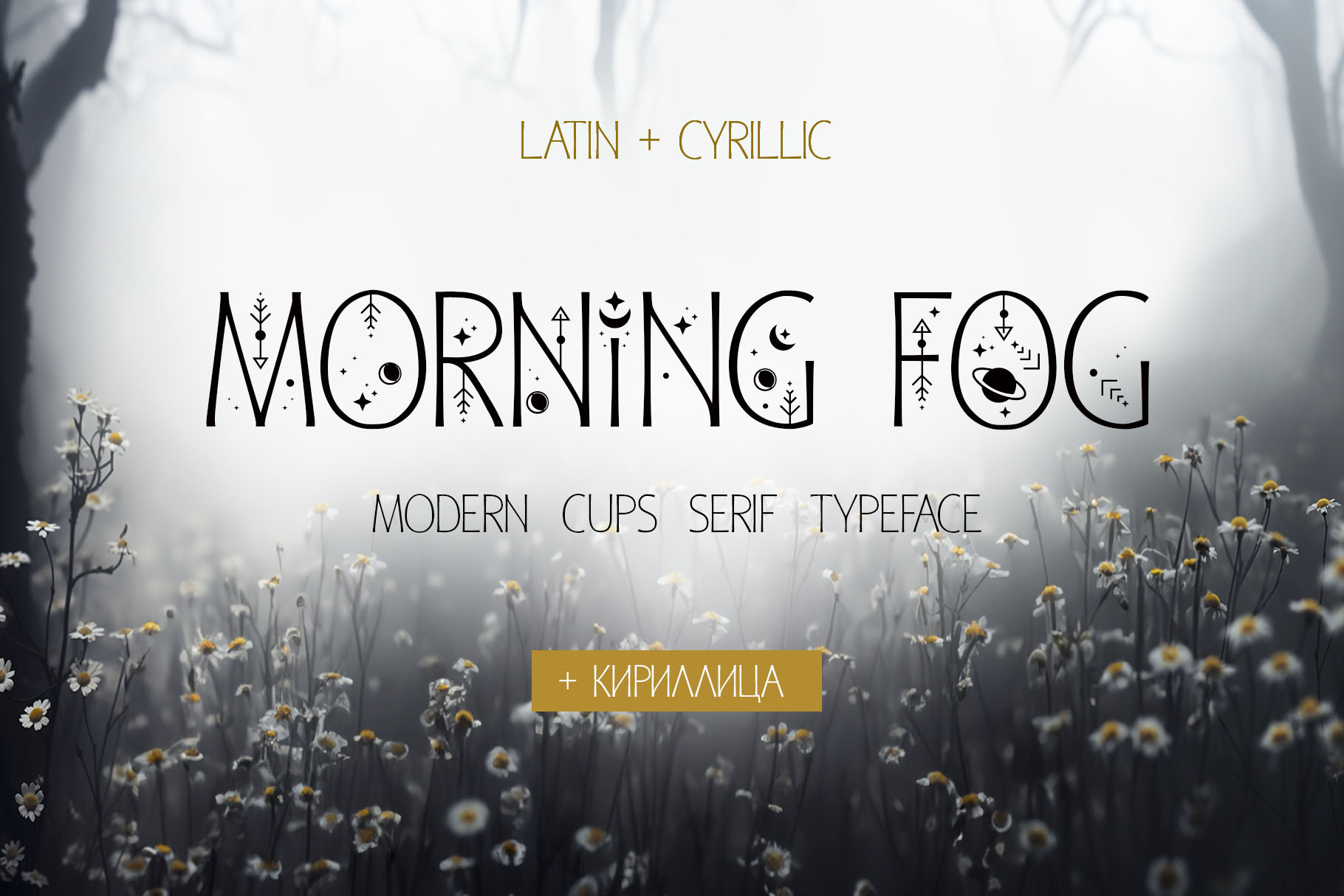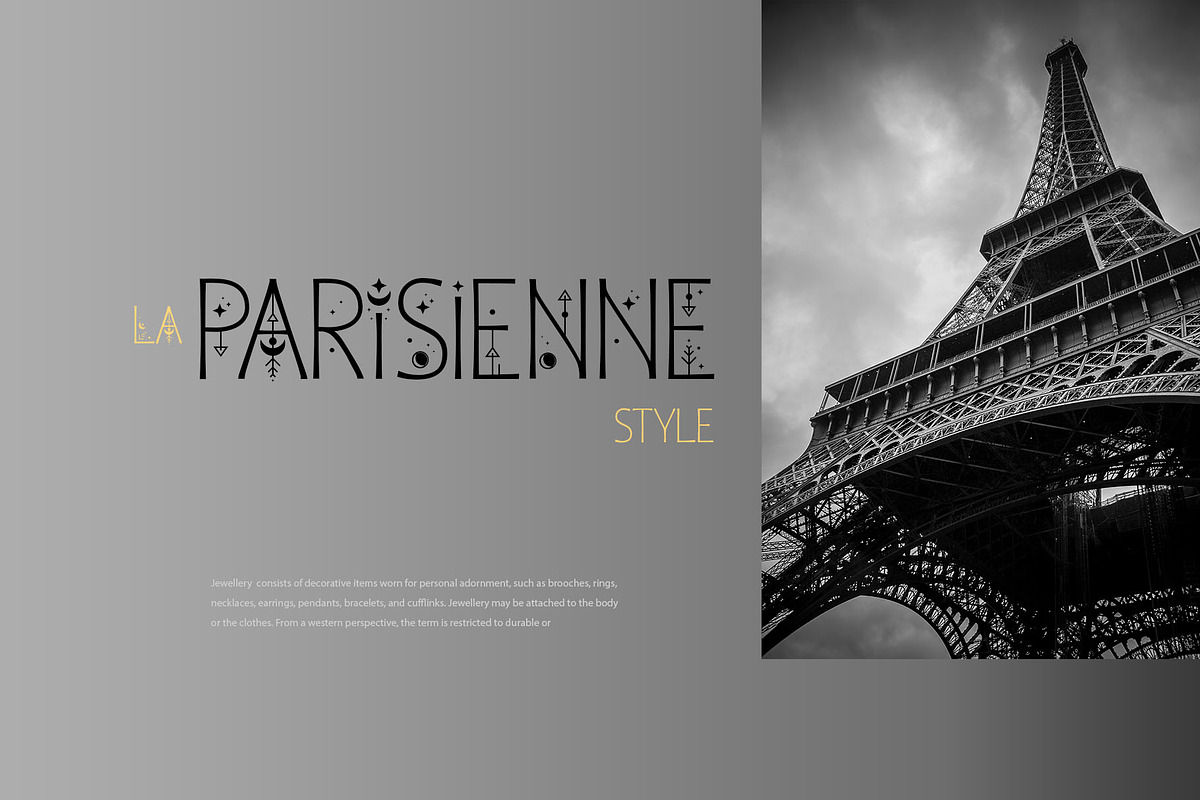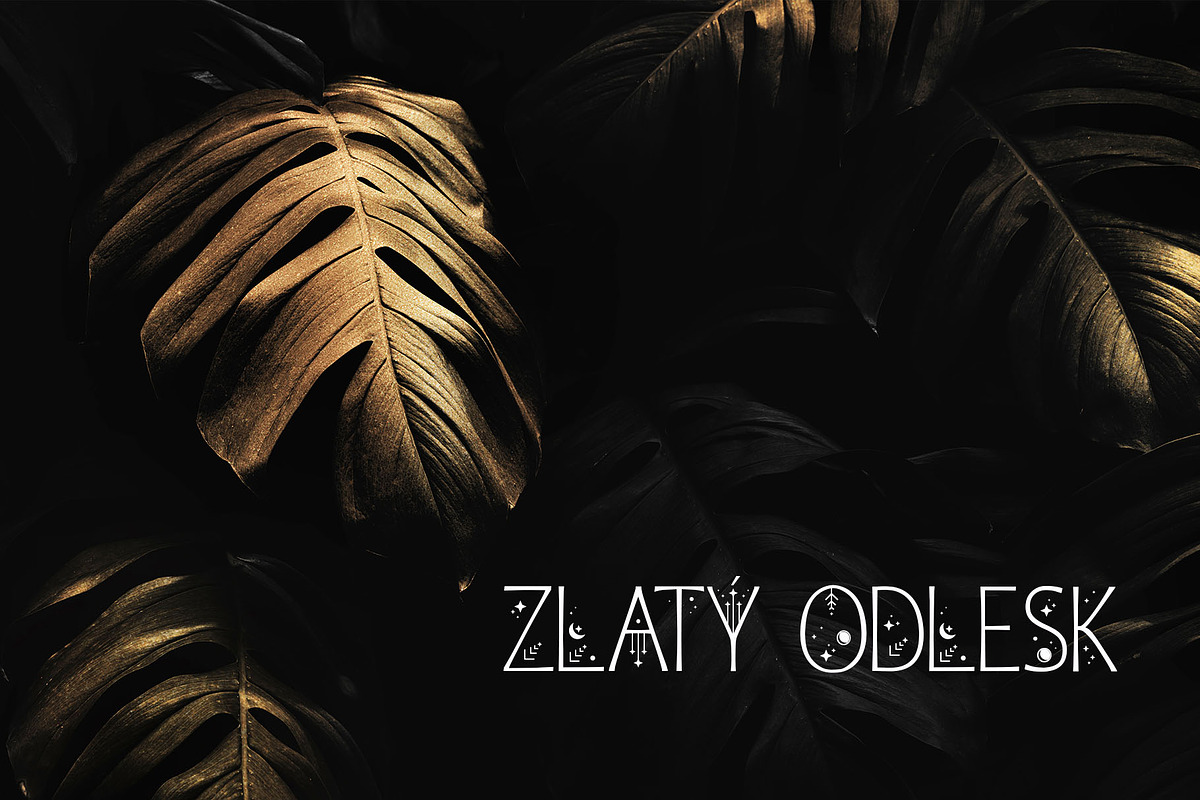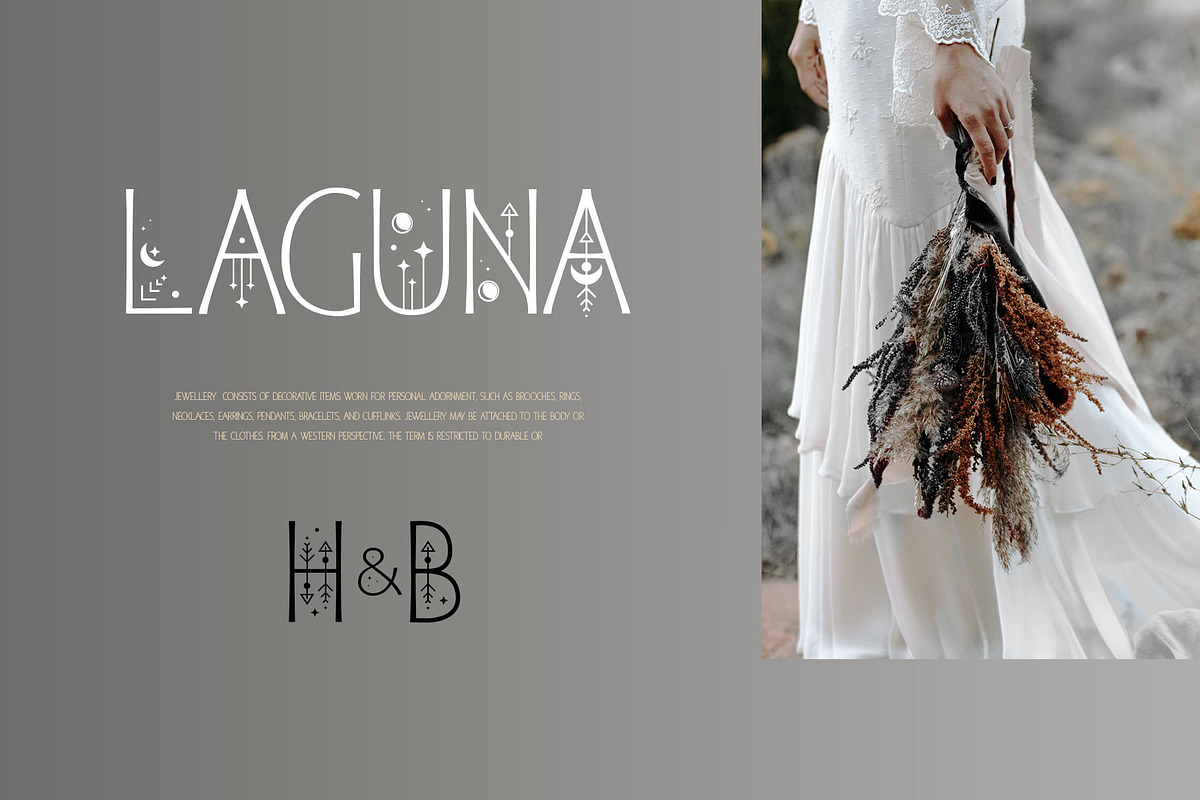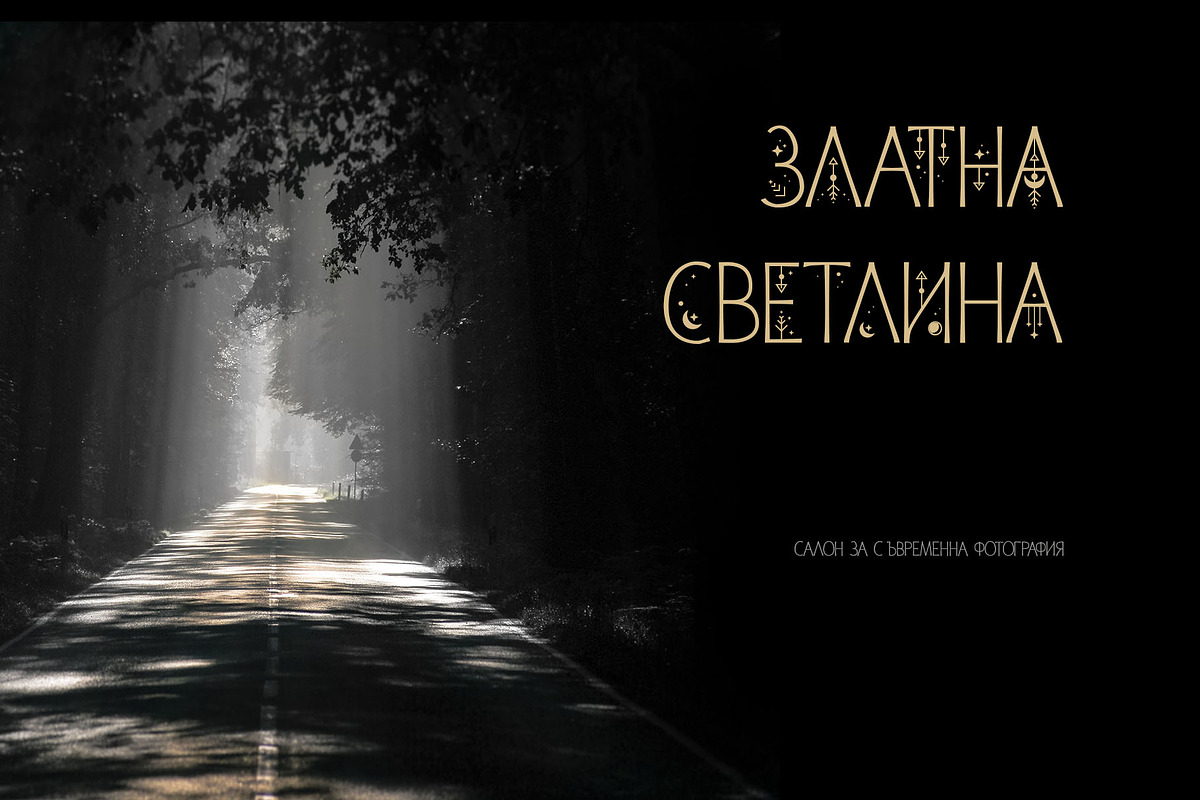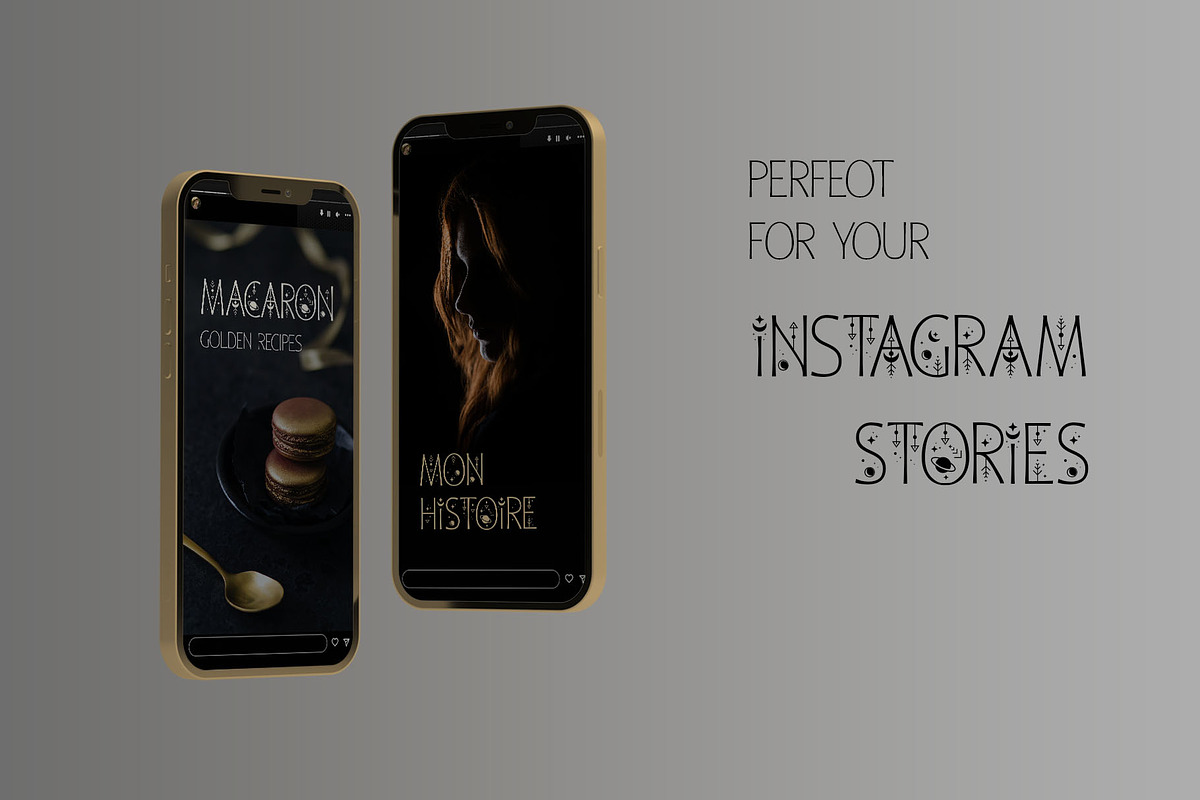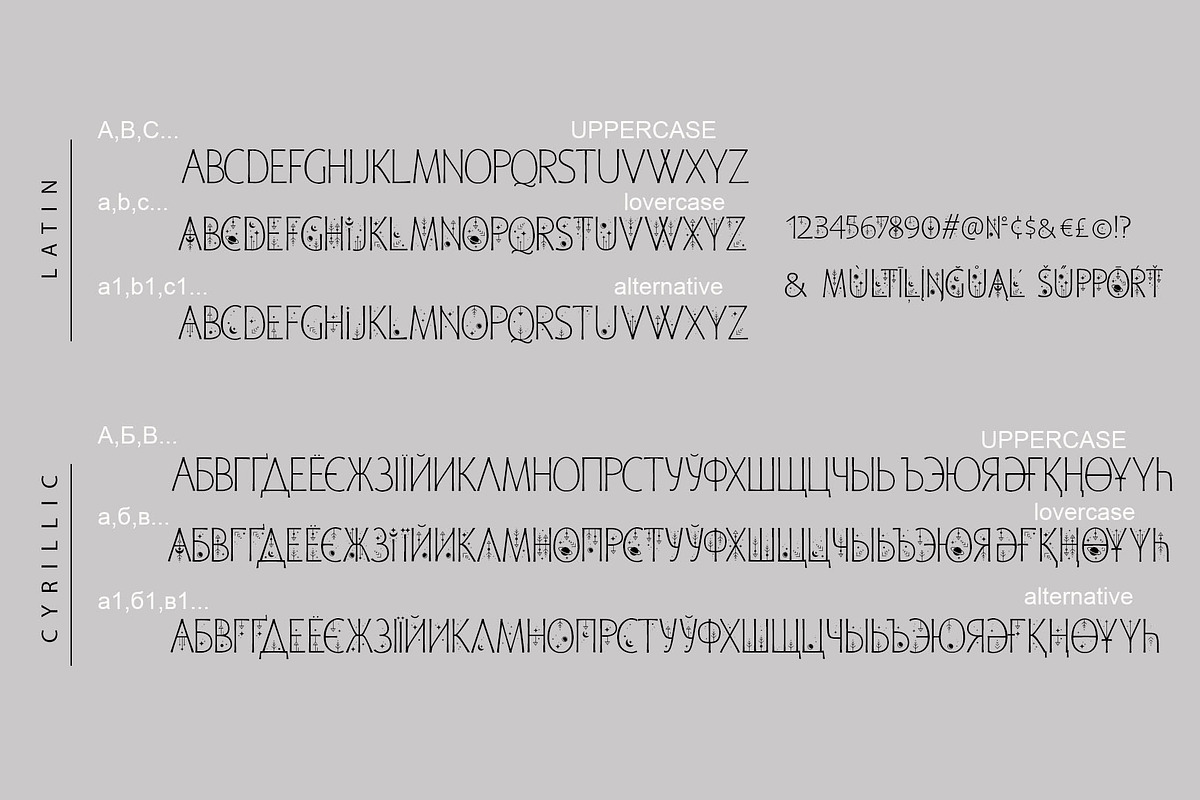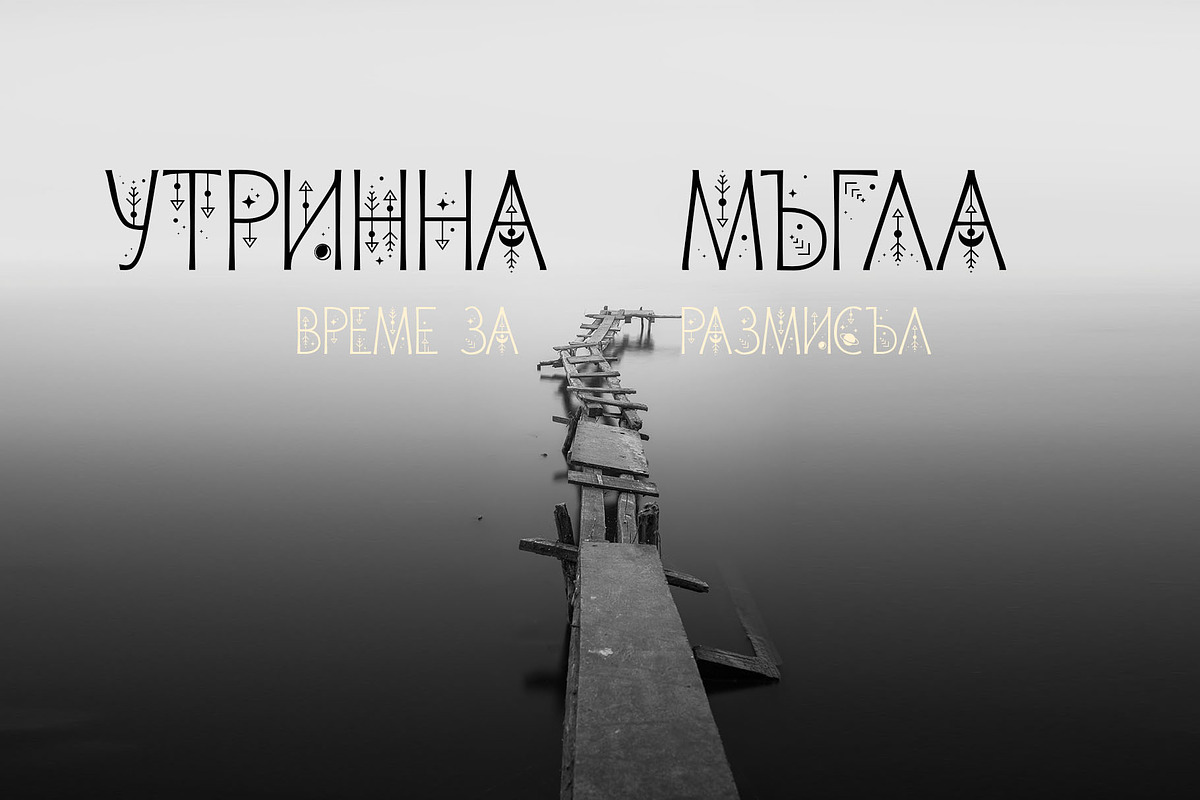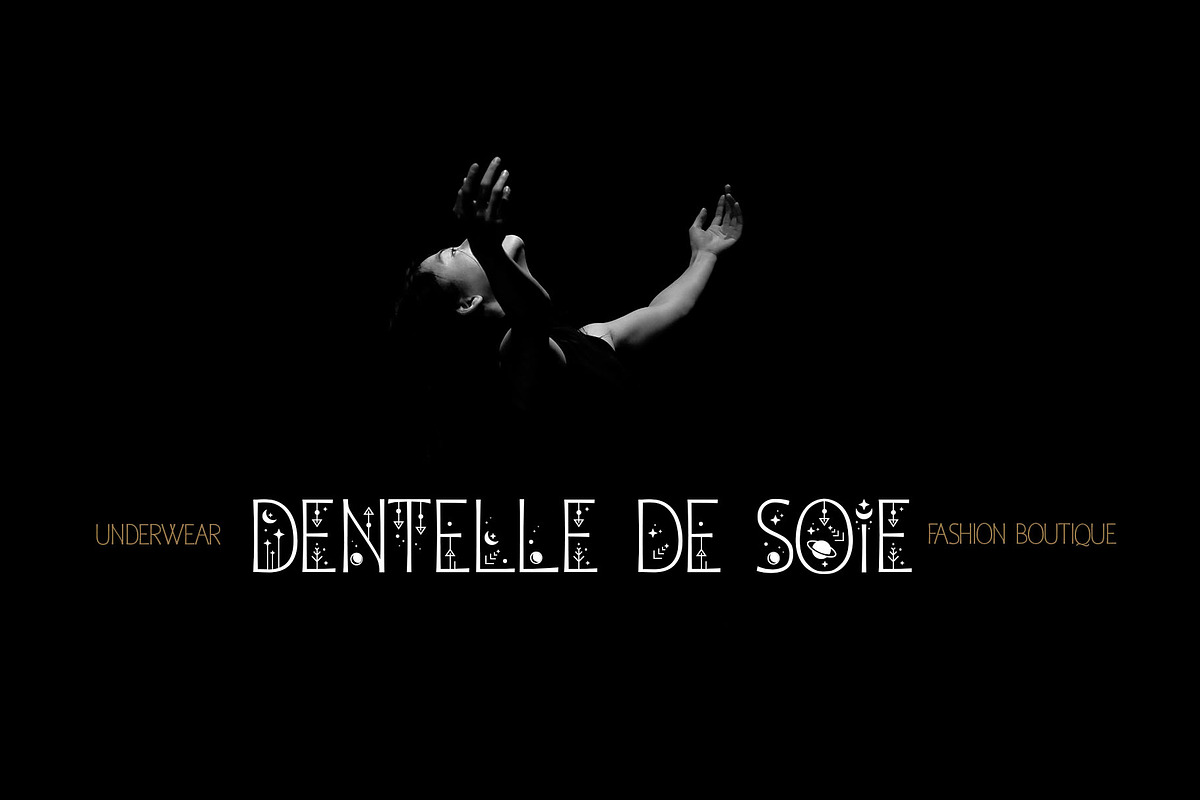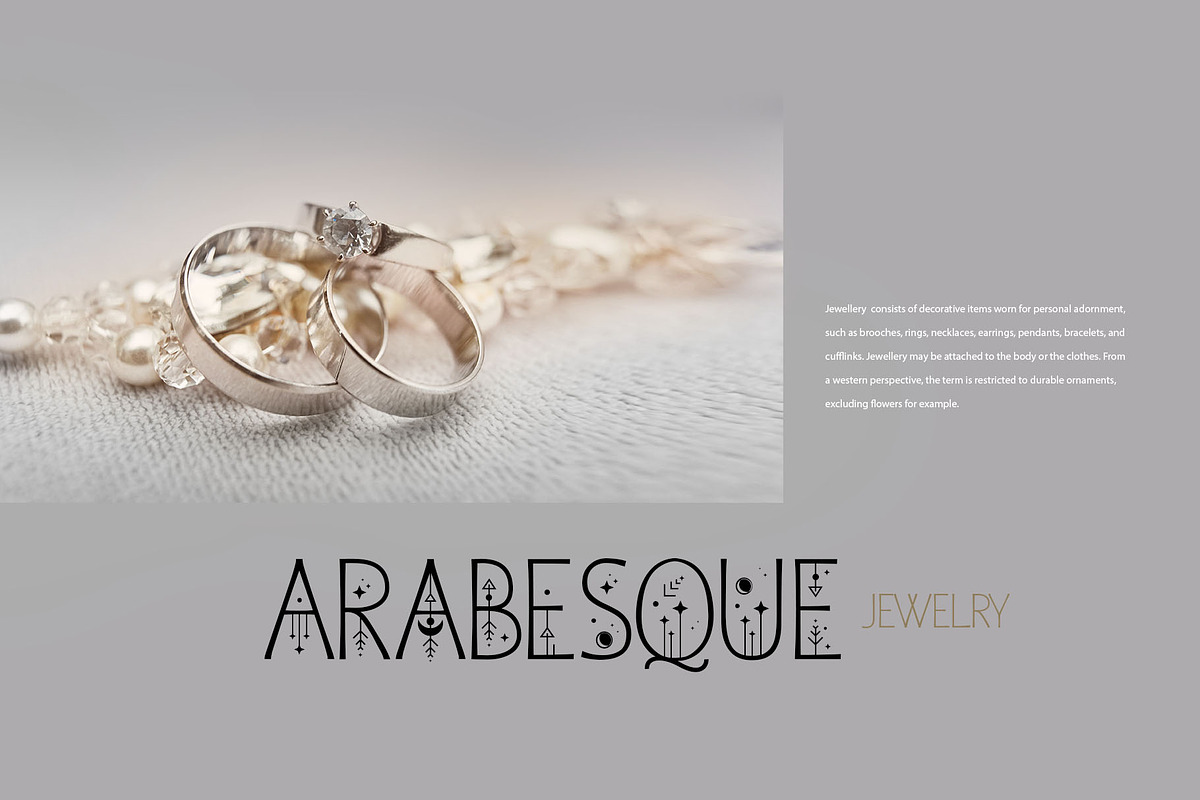
Morning Fog Modern Cyrillic Font
Morning Fog Modern Cyrillic Font is a classy all-caps sans-serif typeface with decorative lowercase, clear uppercase letters, and an alternative light decorative set. Perfect for gorgeous logos and titles, Morning Fog Cyrillic Font will pair beautifully with many fonts and work well with whatever project you're working on. You can choose to use decorative, light decorative, or clear glyphs to make your typography more varied.
Multilingual Support for 32 languages: Latin glyphs for Afrikaans, Albanian, Basque, Bosnian, Catalan, Danish, Dutch, English, Estonian, Faroese, Filipino, Finnish, French, Galician, Indonesian, Irish, Italian, Malay, Norwegian Bokmål, Portuguese, Slovenian, Spanish, Swahili, Swedish, Turkish, Welsh, Zulu.
And Cyrillic glyphs support Russian, Belorussian, Bulgarian, Ukrainian, and Kazakh languages.